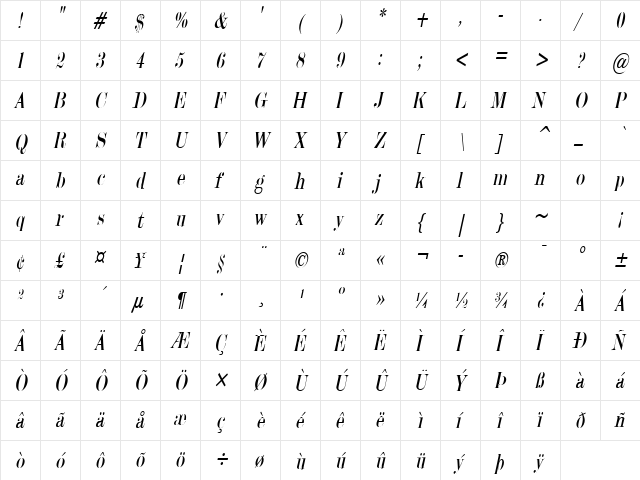
Update-Condensed Italic Font Preview
Design Context for Update-Condensed Typeface
Update-Condensed is a composed and adaptable typeface that performs quietly and consistently across a wide range of design contexts. The dynamic lean of this cut emphasises speed and emphasis in any layout. The condensed width makes it efficient for tight spaces without sacrificing legibility.
Pro Tip: Try Update-Condensed for annotation and caption copy alongside an upright companion — the contrast in angle creates a dynamic but ordered typographic system.